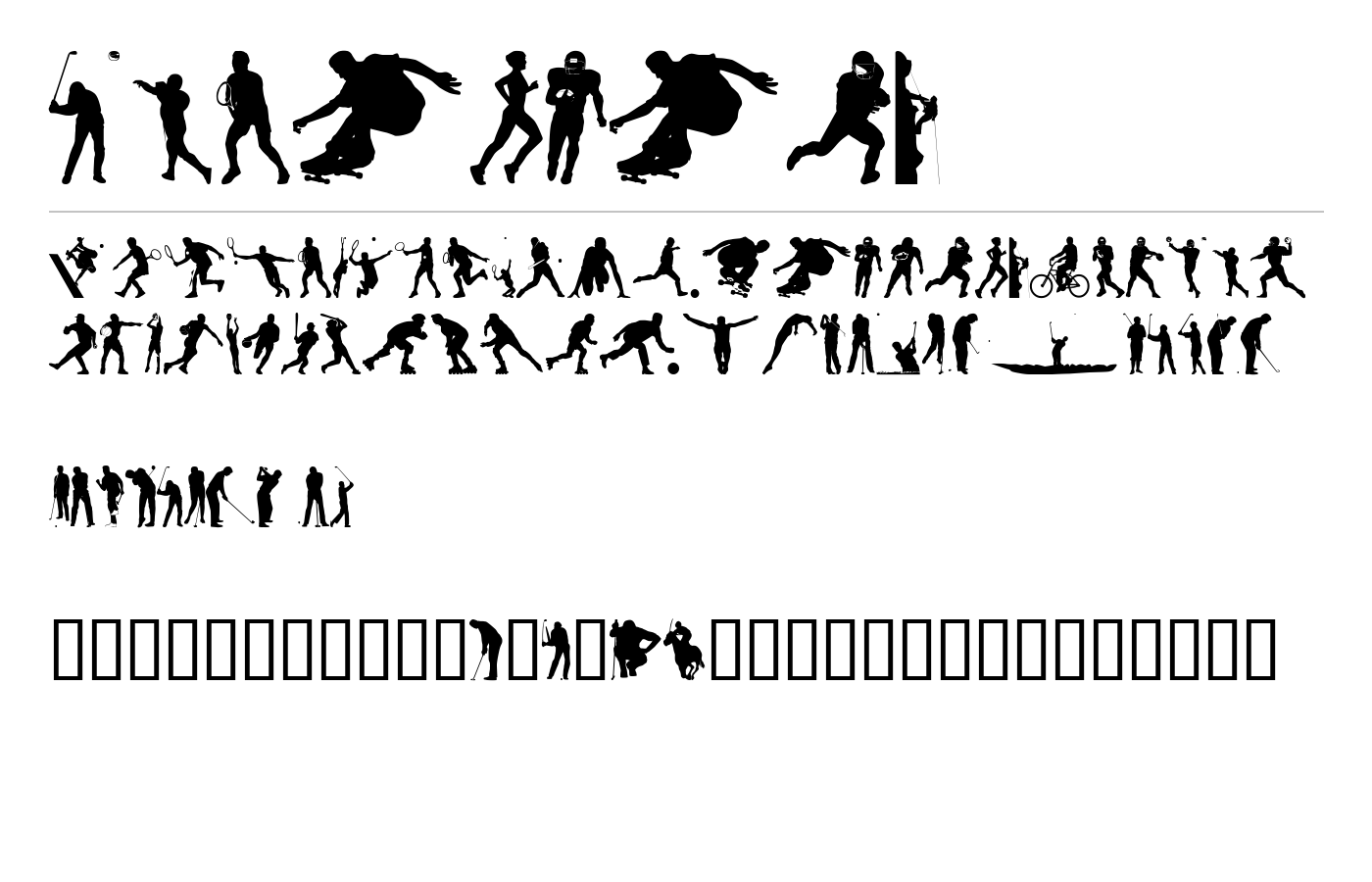
4YEOSPORT is a unique pictorial font composed entirely of detailed black silhouettes depicting various sports and athletic movements. Instead of traditional letterforms, it uses dynamic human figures in action, making it perfect for creative projects centered around sports, fitness, and active lifestyles. This font adds an energetic and playful vibe, ideal for eye-catching logos, posters, and promotional materials in the sports and recreation industries.
4YEOSPORT Font